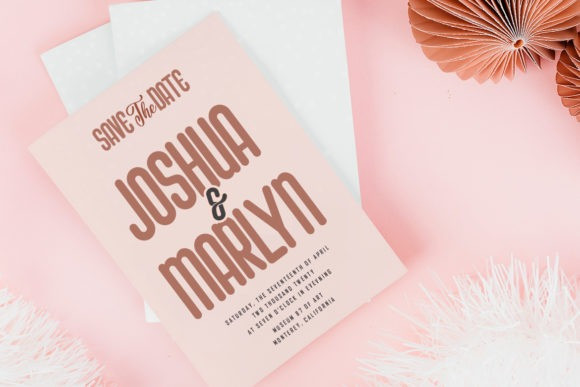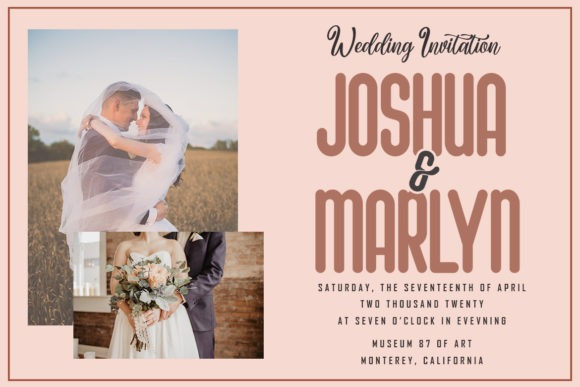
Belarus Display Font
Belarus Display Font is a clean and simple sans serif font. It is suitable for designs such as t-shirts, sportswear, logos, advertisements, clothing, and more.